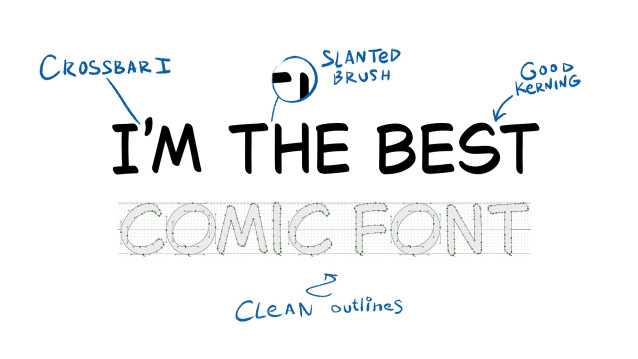
Bubble Sans X Font is a simple and friendly handwritten font. Its natural and unique style makes it incredibly fitting to a large pool of designs. The only limit is your imagination!
| Designer Name: | AbayEmes |